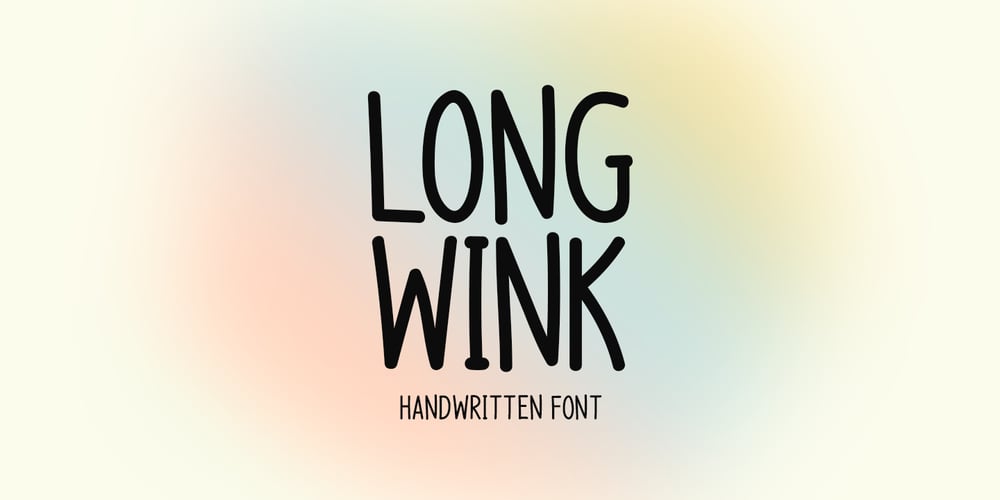
Long Wink
Long Wink font
Long Wink Font Family was designed by Md Shohail Bhuian and published by Seemly Fonts. Long Wink contains 1 styles and family package options. Long Wink is a handwritten typeface that is ideal for use on stationery, logos, t-shirts, paper, print designs, website headers, picture frames, flyers, album covers, posters, image sliders, and other things.